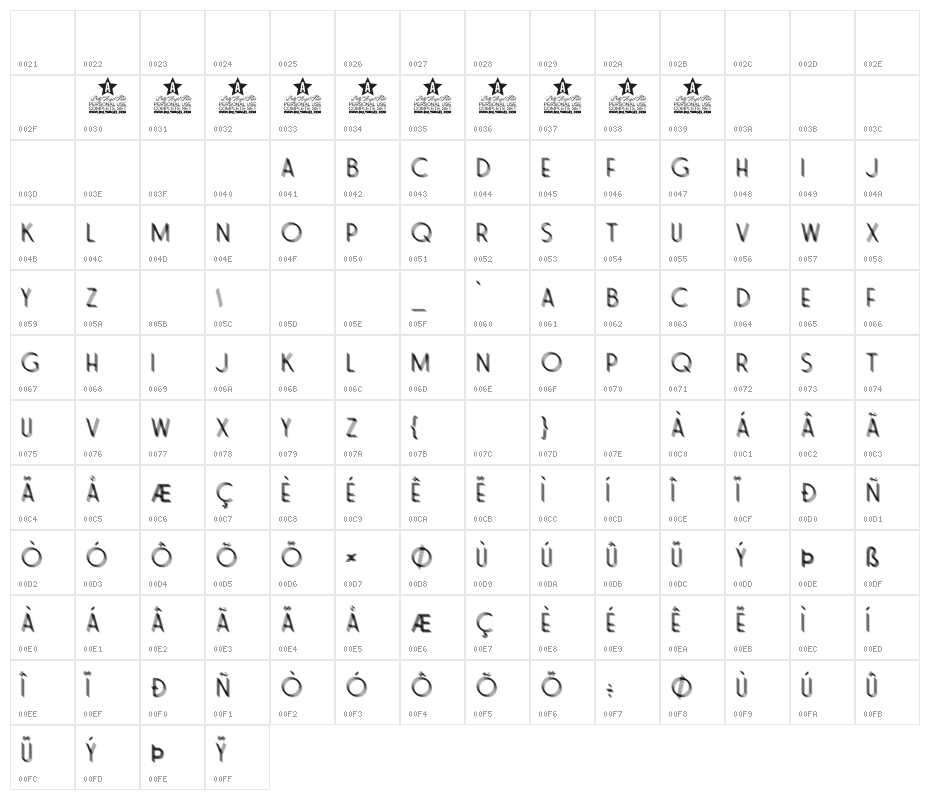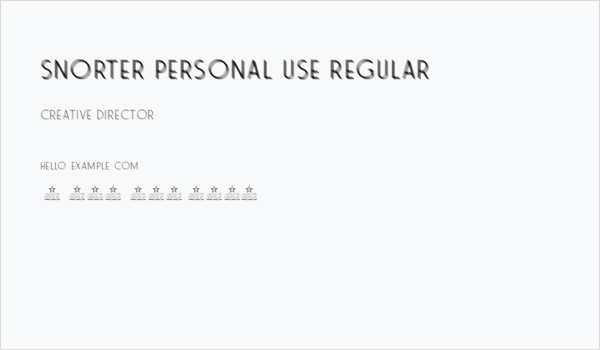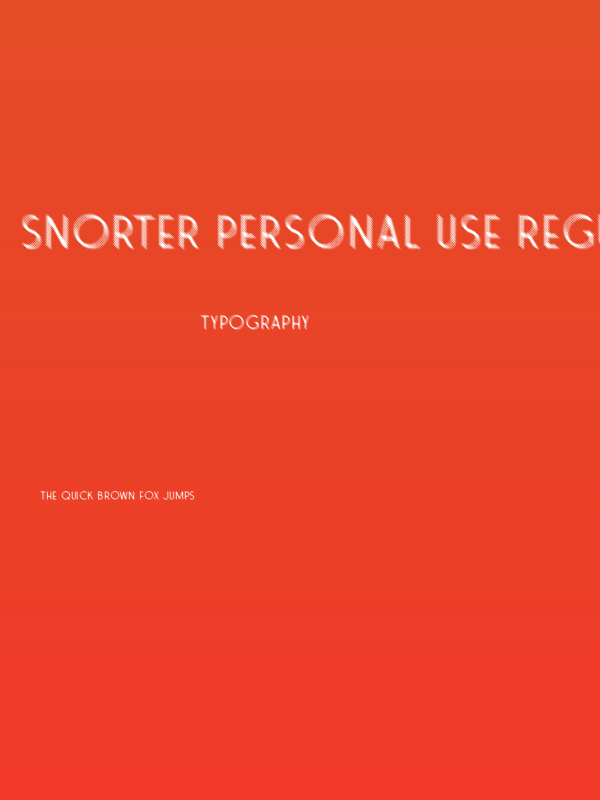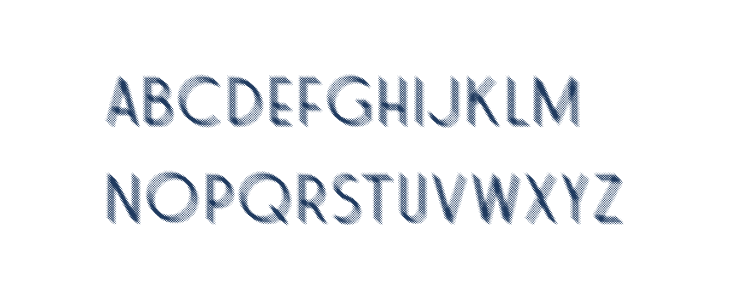
SNORTER PERSONAL USE Regular Font
SNORTER PERSONAL USE Regular Description
This font features a bold and striking design with a unique halftone pattern that gives it a textured appearance. The characters are uppercase only, with sharp angles and a geometric style that conveys a sense of modernity and strength. The halftone effect adds depth and visual interest, making it suitable for eye-catching designs. Its boldness and distinctive look make it ideal for headlines, posters, and branding projects where a strong visual impact is desired.
| Proposed Projects | Ideal for posters, headlines, branding, and any project requiring a bold and modern aesthetic. |